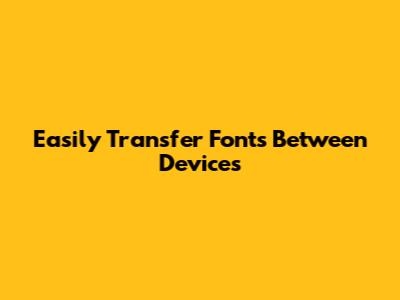
Hey guys! Ever been in a situation where you're working on a project, maybe designing a cool graphic or writing a document, and you've found the perfect font? You know, the one that just screams "this is it!"? But then, disaster strikes! You need to switch to another computer, or perhaps share it with a buddy, and suddenly that amazing font is nowhere to be found. Talk about a buzzkill, right? Well, fret no more! Transferring fonts between devices, whether it's from your trusty desktop to your sleek laptop, or even between different operating systems like Windows and macOS, is actually way simpler than you might think. We're going to dive deep into the nitty-gritty of how to transfer fonts like a pro, ensuring your creative flow never hits a roadblock again. We'll cover everything from the basic drag-and-drop methods to more specific scenarios, so stick around and let's get those fonts moving!
Understanding Font Files and Installation
Before we get into the actual transferring part, it's super important to understand what we're actually moving around. Fonts, in the digital world, come in various file formats. The most common ones you'll encounter are .ttf (TrueType Font) and .otf (OpenType Font). Sometimes you might also see .woff or .woff2 if you're dealing with web fonts, but for transferring to your personal computer, .ttf and .otf are your main guys. Think of these files as the blueprints for your text's appearance. They contain all the information about how each letter, number, and symbol should look. To make a font usable on your computer, you need to install it. Installation essentially tells your operating system where to find the font file and how to access it for all your applications, like word processors, design software, and more. This process is usually straightforward – often just a double-click and then hitting an 'Install' button. When you transfer fonts, you're simply copying these .ttf or .otf files from one location to another. The key is to ensure they end up in a place where your operating system can recognize and install them. So, whether you're moving from a Mac to a PC or vice-versa, the core concept remains the same: get the font file, move the font file, and install the font file. We'll break down the specifics for each operating system in the following sections, but keep this basic understanding in mind. It's not rocket science, folks; it's just about managing these little digital pieces of typographic art!
Transferring Fonts from Windows to Mac
Alright, let's say you've got a fantastic font collection on your Windows machine and you've just gotten your hands on a shiny new Mac, or maybe you're just collaborating with a Mac user. The good news is, transferring fonts from Windows to Mac is a breeze. First things first, you need to locate the font files on your Windows PC. Typically, fonts are stored in the C:\Windows\Fonts folder. You can navigate to this folder directly through File Explorer. Once you've found the fonts you want to transfer (they'll have .ttf or .otf extensions), you need to copy them. You can select multiple files by holding down the Ctrl key while clicking, or select a range by clicking the first file, holding Shift, and clicking the last. Then, right-click and choose 'Copy'. Now, how do you get them to your Mac? The easiest ways are using a USB drive, an external hard drive, or cloud storage services like Google Drive, Dropbox, or OneDrive. Simply paste the copied font files onto your chosen external storage or upload them to your cloud service. If you're using a USB drive, safely eject it from your Windows PC and plug it into your Mac. On your Mac, open the drive or access the cloud storage folder. You'll see your font files. Now, to install them on your Mac, the process is super simple. You can either double-click on each font file. This will open the Font Book application, showing you a preview of the font. Just click the 'Install Font' button. Alternatively, you can select all the font files you've transferred, then drag and drop them directly into the Font Book application window, or right-click on the selected font files and choose 'Open With' > 'Font Book'. Font Book will then allow you to install them all at once. Transferring fonts this way ensures you maintain access to your favorite typography across different operating systems. It’s all about getting those .ttf or .otf files from point A to point B and then letting your new system do its magic. Pretty straightforward, right guys?
Transferring Fonts from Mac to Windows
Now, let's flip the script. You're on a Mac and need to get those gorgeous fonts over to a Windows machine. The process is remarkably similar, just with a few OS-specific tweaks. First, find your fonts on your Mac. If you installed them using Font Book, they might be in the ~/Library/Fonts or /Library/Fonts folders. You can access your user's Library folder by holding down the Option key while clicking the 'Go' menu in the Finder and selecting 'Library'. Once you locate the .ttf or .otf font files you want to move, select them. You can select multiple files by holding the Command key while clicking, or use Shift for a range. Right-click (or Control-click) and choose 'Copy [number] Items'. Just like before, you'll need a way to bridge the gap between your Mac and your Windows PC. A USB drive, external hard drive, or cloud storage are your best friends here. Paste the copied font files to your chosen transfer medium or upload them to your cloud service. If you're using an external drive or USB, eject it safely from your Mac and connect it to your Windows PC. On Windows, navigate to the location where you saved the font files. To install them, it's incredibly simple. You can double-click each font file, and a preview window will pop up with an 'Install' button. Click it, and the font will be installed. For installing multiple fonts at once, you can select all the desired font files, right-click on the selection, and then choose 'Install for all users' (if you have admin rights) or just 'Install'. Transferring fonts from Mac to Windows is just as seamless as the other way around. It’s all about getting those file types – .ttf and .otf – across the digital divide and letting the Windows system recognize them. You've got this!
Using Cloud Storage for Font Transfers
So, you've heard me mention cloud storage a few times, and for good reason! Transferring fonts using cloud services is, in my humble opinion, one of the slickest and most convenient methods available today. Services like Google Drive, Dropbox, OneDrive, and iCloud Drive act as a central hub for your files. Imagine this: you have your favorite font collection neatly organized in a folder on your computer. You upload this entire folder to your chosen cloud service. Boom! Now, that font collection is accessible from any device that can connect to your cloud account – your work laptop, your home desktop, your tablet, even your phone (though installing fonts on phones is a different beast, usually requiring specific apps). Let's walk through it. On your source computer (let's say it's your Windows PC), open your cloud service's application or website and upload the folder containing your font files (.ttf and .otf). Once the upload is complete, go to your destination computer (your Mac, for instance). Log in to the same cloud service account and download the font folder. Once downloaded, you can extract the files if they were zipped and then proceed with the installation process we've already discussed for Mac or Windows. The beauty of this method is that it bypasses the need for physical media like USB drives, which can be lost or corrupted. It's also incredibly efficient for transferring a large number of fonts. Instead of copying and pasting file by file, you upload and download entire folders. Transferring fonts via the cloud means your typography is always within reach, ensuring you're never caught font-less again. It’s a modern solution for a modern workflow, guys, and it’s definitely worth setting up if you haven't already.
Troubleshooting Common Font Transfer Issues
Even with the simplest processes, sometimes things don't go exactly as planned, right? That's totally normal, and when it comes to transferring fonts, there are a few common hiccups you might run into. One of the most frequent issues is a font file becoming corrupted during the transfer. This can happen if the transfer was interrupted, or if the original file was already damaged. If a font won't install or shows errors, try re-downloading or re-copying the font file from the original source. If you suspect corruption, you might have to find a fresh copy of the font. Another common problem is trying to install a font that's already installed. Your operating system is pretty smart about this and will usually prompt you, asking if you want to replace the existing font. Just click 'Yes' or 'Replace' if you want the newer version (though be cautious if you're unsure). Sometimes, especially on Windows, you might encounter permission issues when trying to install fonts for 'all users'. This usually means you need administrator privileges. Try right-clicking the font file and selecting 'Run as administrator' or use the 'Install' option which typically installs it just for your user account. On Macs, if Font Book gives you trouble, ensure you're not trying to install a font that's already disabled or deactivated within Font Book itself. Sometimes, fonts might appear in your applications, but not all of them. This can happen if the application hasn't been restarted since the font was installed. Transferring fonts requires a bit of patience, and if something isn't working, the first step is always to double-check the font file itself and the installation steps. Most of the time, it's a simple fix. Don't get discouraged, guys; troubleshooting is just part of the digital journey!
Keeping Your Font Library Organized
Now that you've mastered the art of transferring fonts, the next logical step is ensuring your precious font library stays tidy and manageable. A disorganized font collection can quickly become as frustrating as not having the font you need in the first place. Think of it like a messy toolbox – you know the wrench is in there somewhere, but finding it takes ages. So, let's talk about some killer strategies to keep things organized.
Categorizing Your Fonts
This is probably the most important step. When you're transferring fonts or downloading new ones, make it a habit to immediately categorize them. Don't just dump them all into one giant folder. Create subfolders based on categories that make sense to you. Some popular categories include: Serif (like Times New Roman, for that classic feel), Sans-Serif (like Arial or Helvetica, clean and modern), Script (for elegant handwriting styles), Display or Decorative (for headings and special use), Monospace (often used for coding or typewriter looks), and maybe even categories for specific projects like "Wedding Fonts" or "Retro Vibes". When you transfer fonts, make sure you transfer these organized folders. On your new system, you can then install them directly from these categorized folders. This makes finding the right font for the right job incredibly fast. Transferring fonts with organization in mind from the start saves you heaps of time later.
Using Font Management Software
If you're a designer, a writer, or anyone who works with a lot of fonts, seriously consider investing in some font management software. Guys, this stuff is a game-changer! While operating systems have built-in tools like Font Book (Mac) and the Fonts folder (Windows), dedicated font managers offer much more powerful features. Software like Suitcase Fusion, FontBase, RightFont, or NexusFont (for Windows) allow you to preview fonts without installing them, activate and deactivate fonts on the fly (meaning you can have thousands of fonts on your system without slowing it down, only activating the ones you need for a specific project), create custom collections, and even tag fonts with keywords. This makes transferring fonts and managing your entire library a breeze. You can often sync your active font sets across different computers via cloud services integrated with the software. It’s like having a super-powered librarian for your typography, ensuring every font is perfectly cataloged and accessible when you need it. It takes the headache out of managing large font collections and makes the process of finding and using the right font incredibly efficient.
Regular Backups
This might seem obvious, but you'd be surprised how many people neglect it. Your font collection represents hours of searching, purchasing, and organizing. Losing it would be a nightmare! Make it a non-negotiable part of your workflow to regularly back up your font library. Use external hard drives, NAS (Network Attached Storage), or reliable cloud storage services. Transferring fonts to a new machine is one thing, but having a secure backup means you can recover your entire collection if disaster strikes – think hard drive failure, accidental deletion, or even theft. Set up automated backup routines if possible. Treat your fonts like the valuable assets they are. Regular backups ensure that no matter what happens, your beloved typography will always be safe and sound, ready to be transferred or used whenever inspiration strikes.